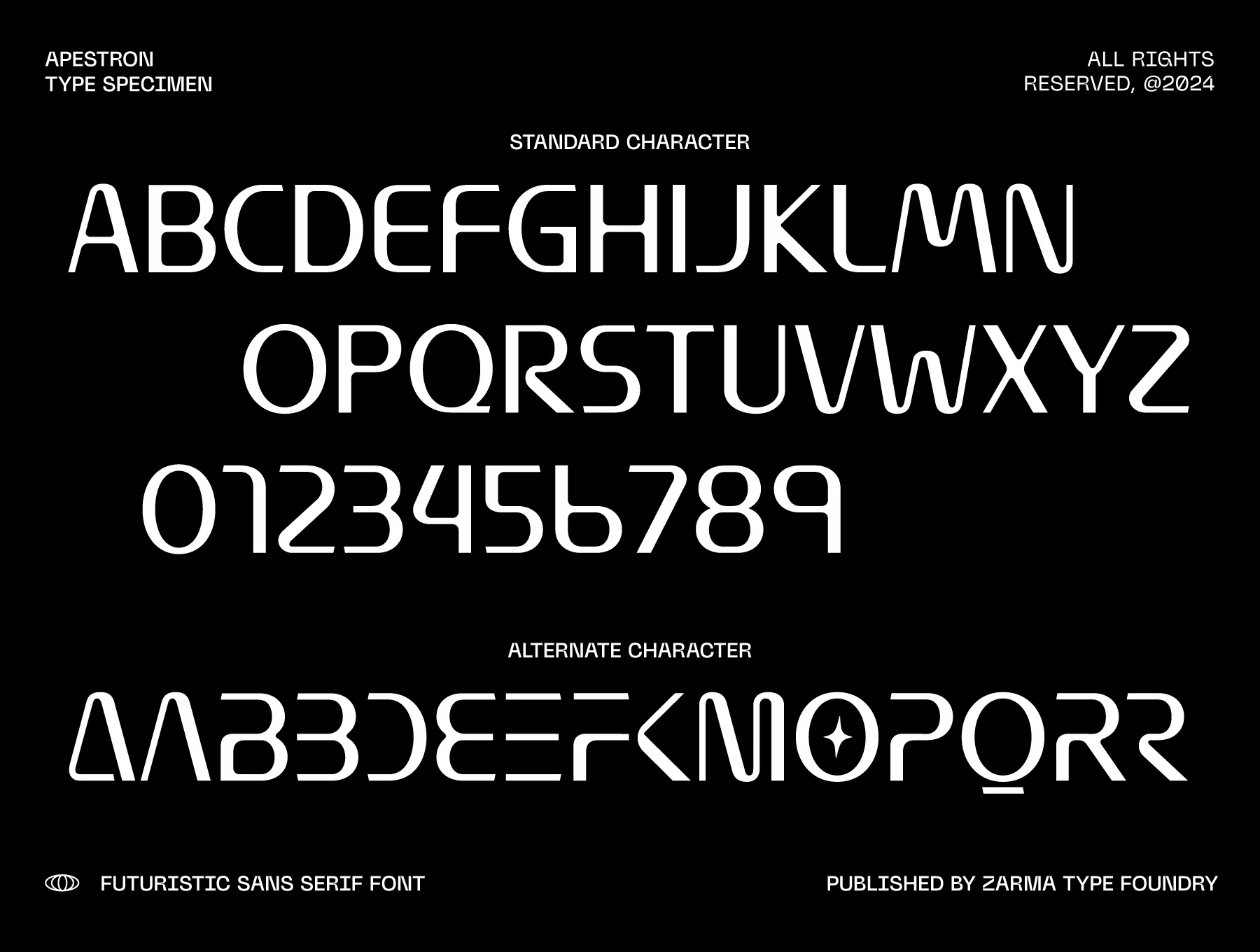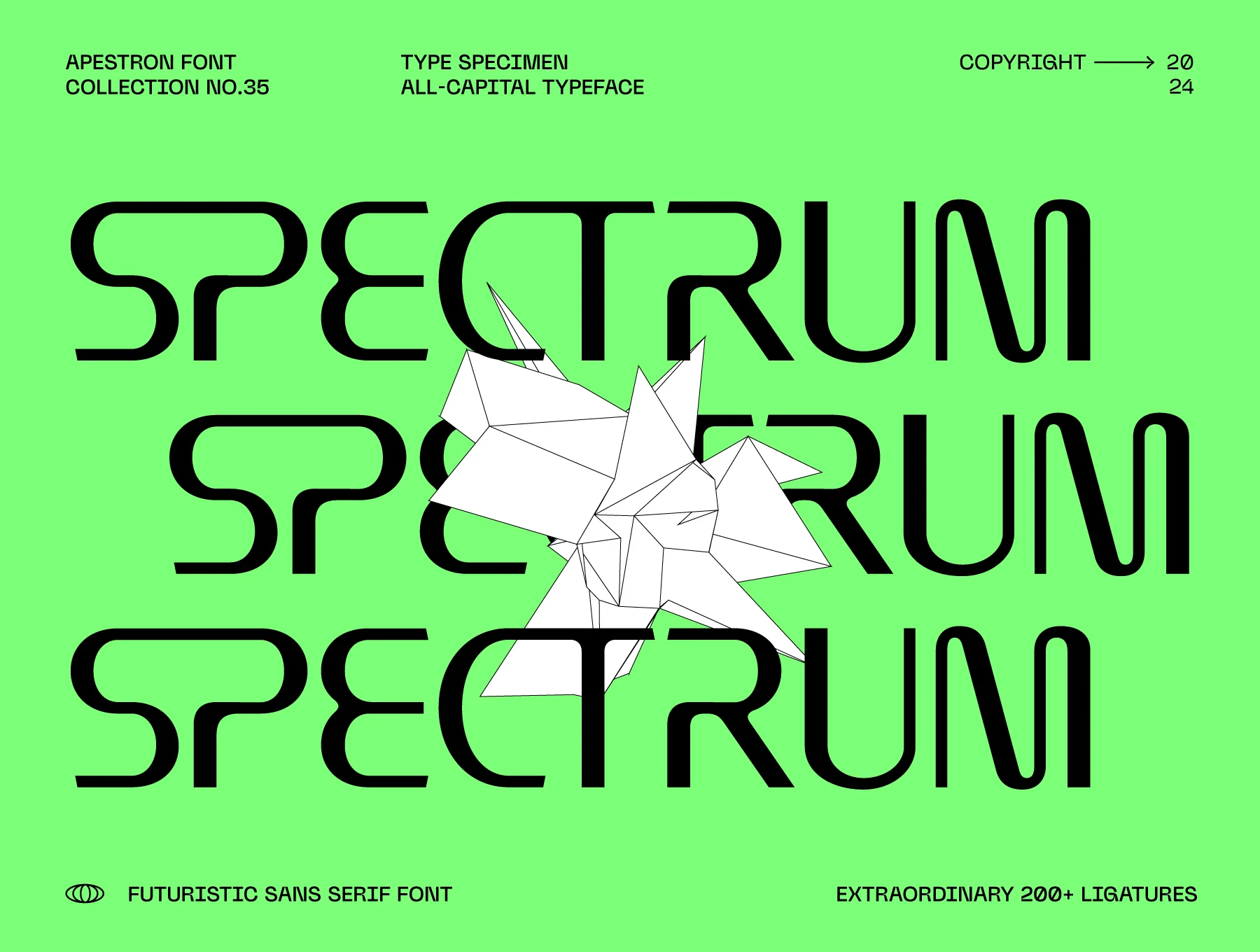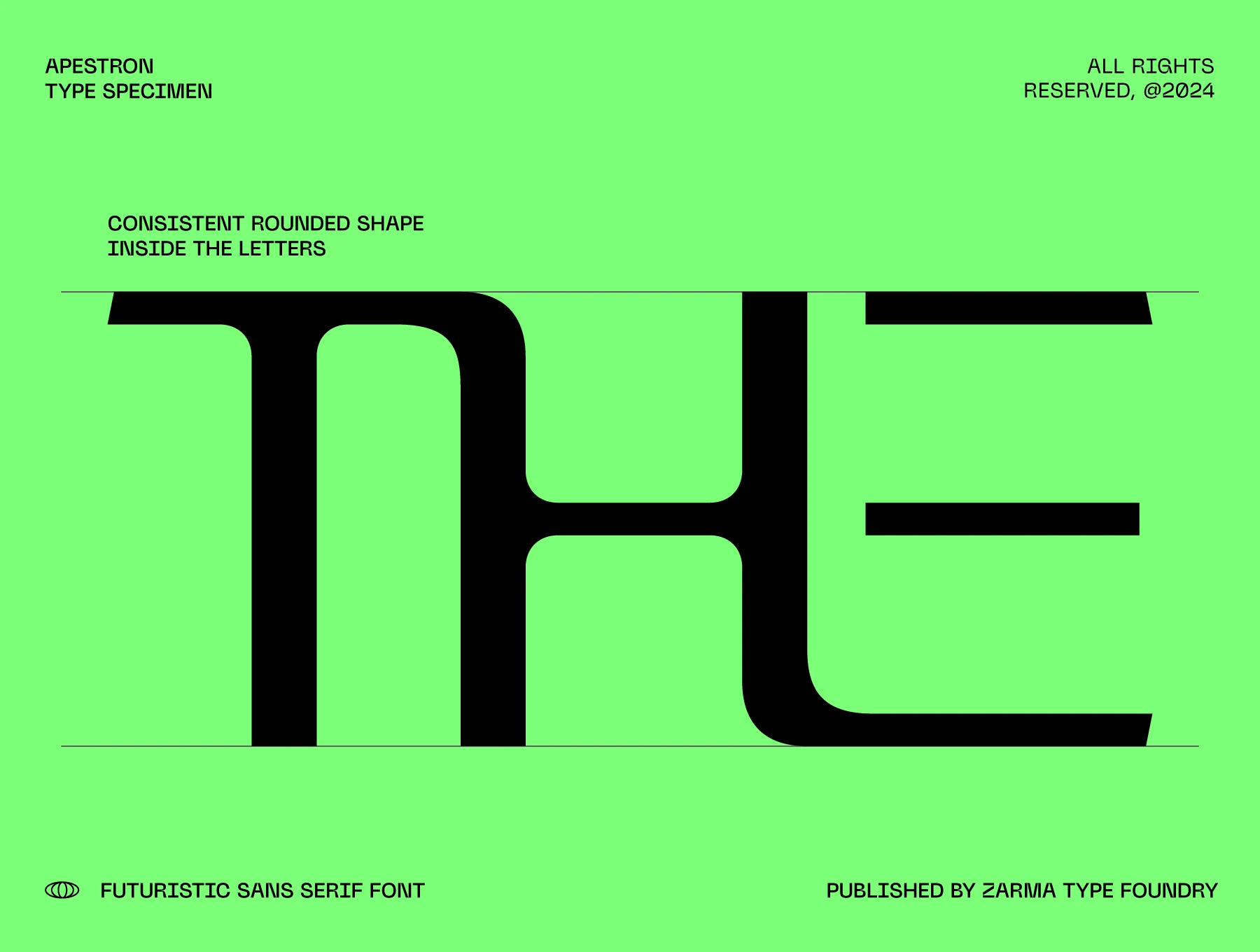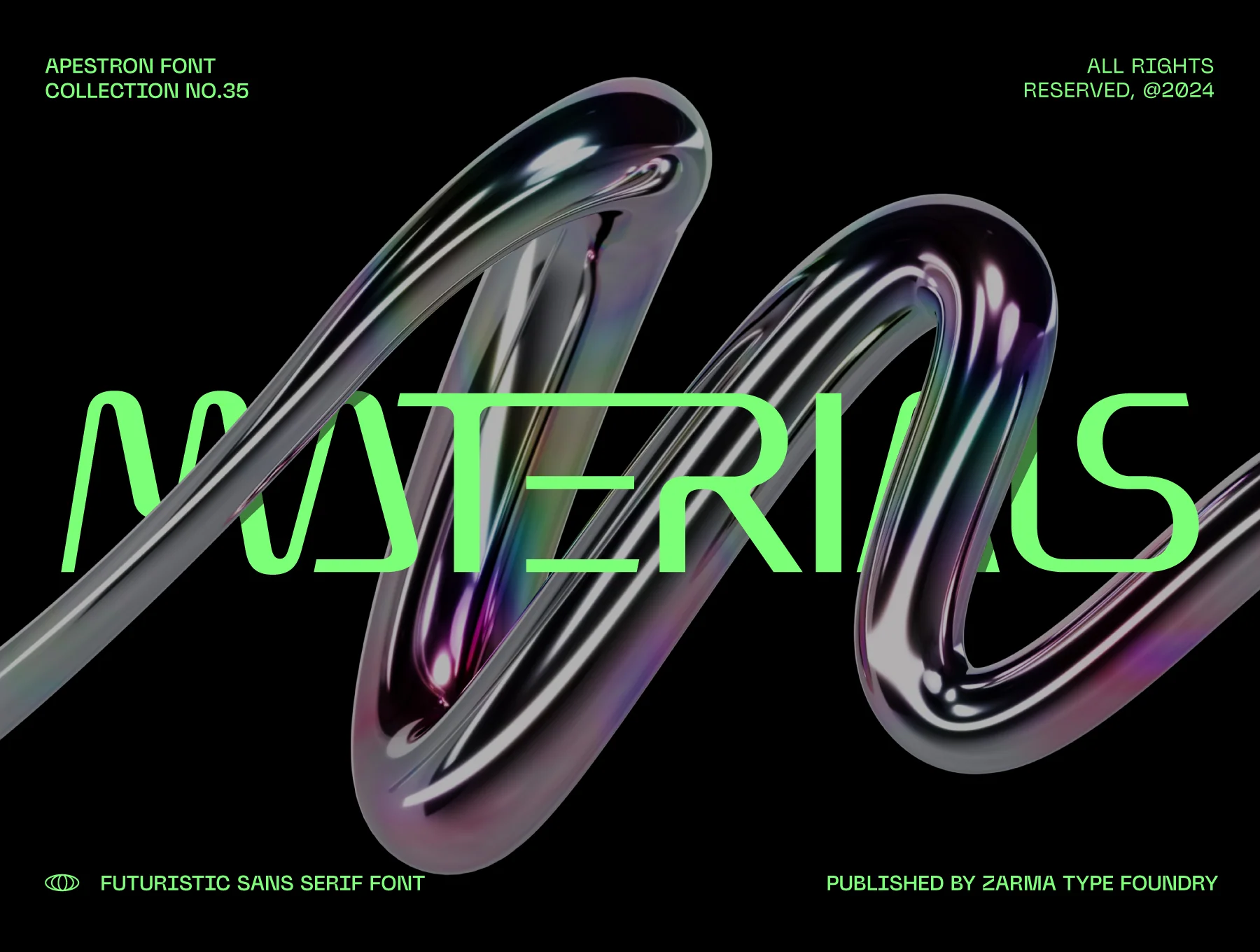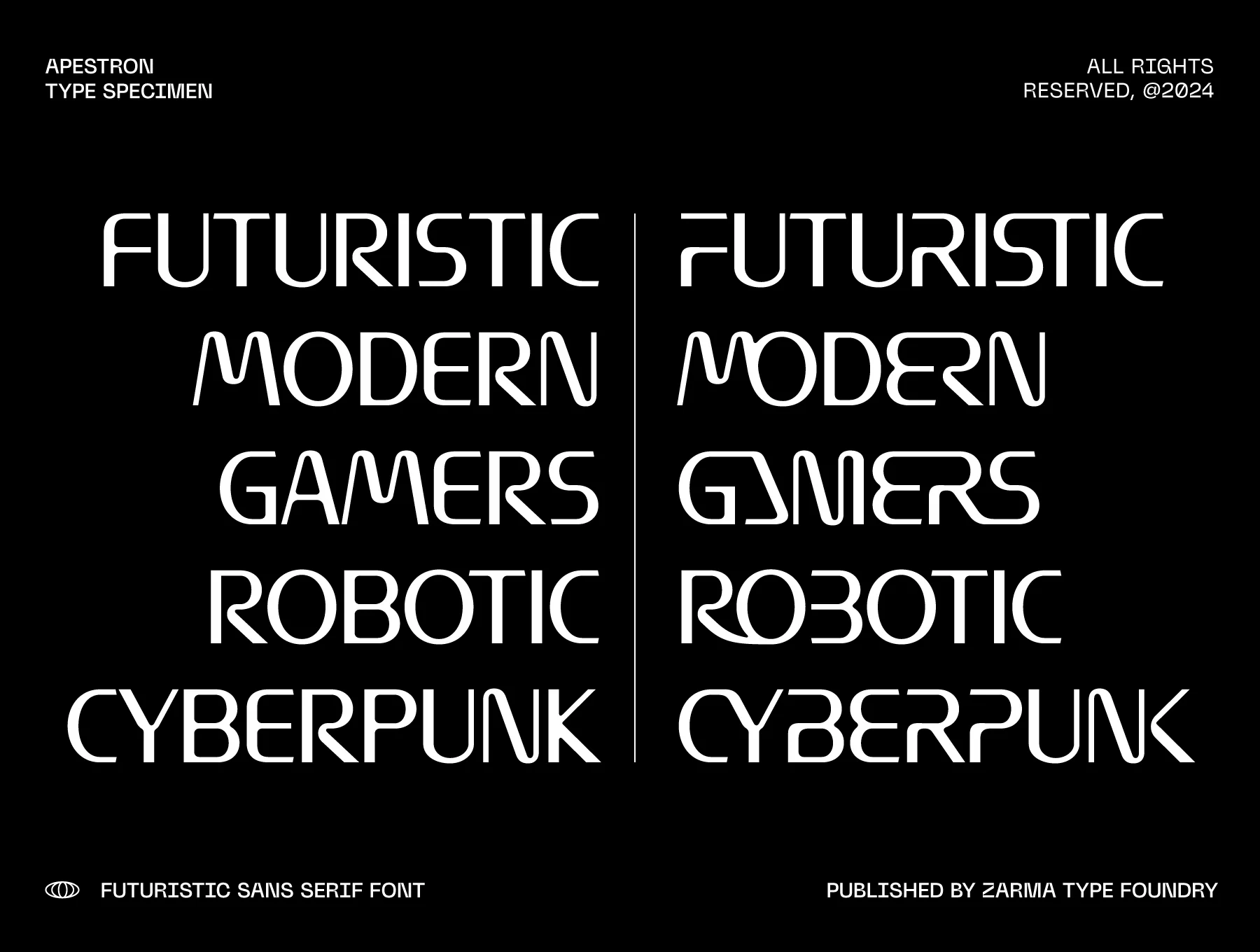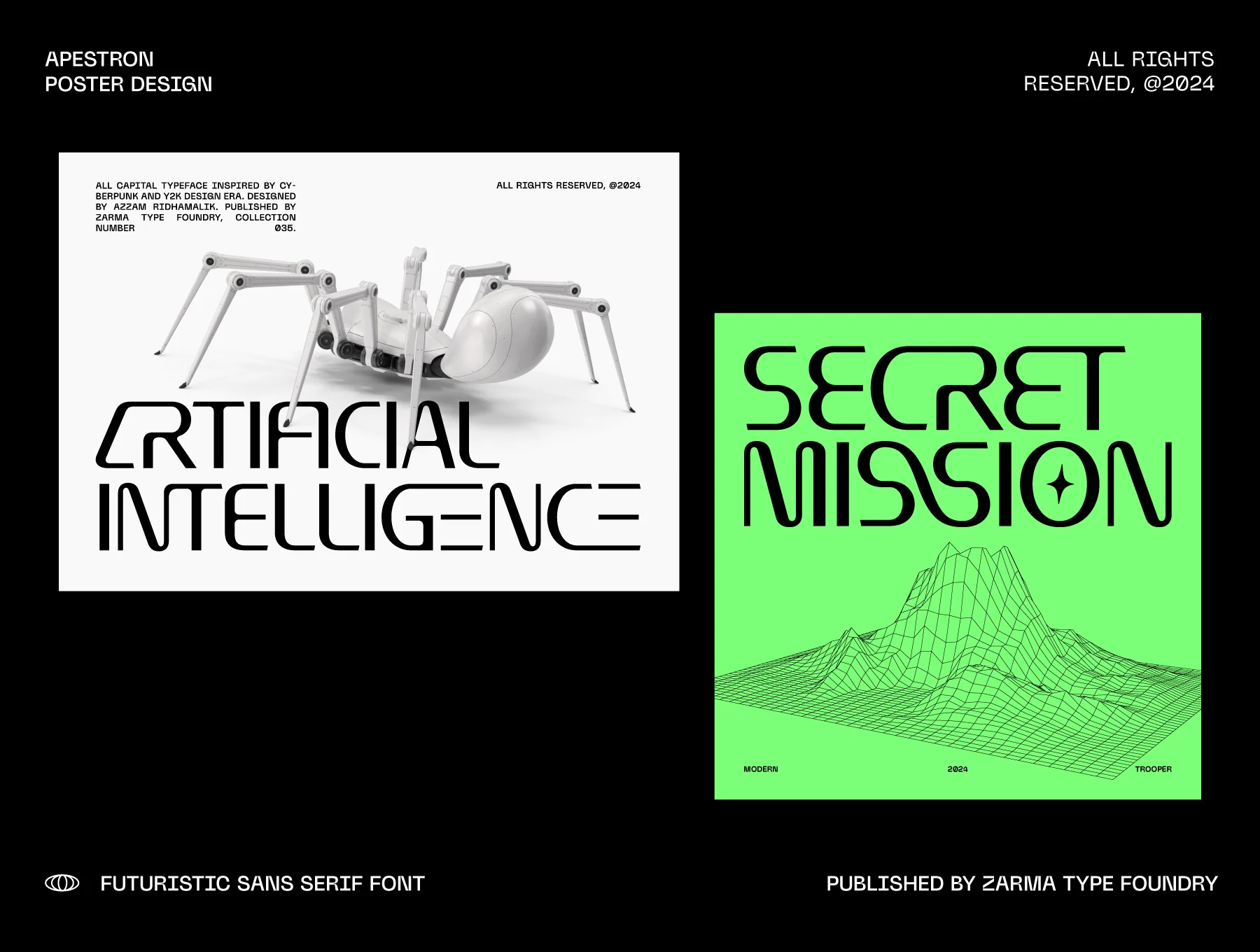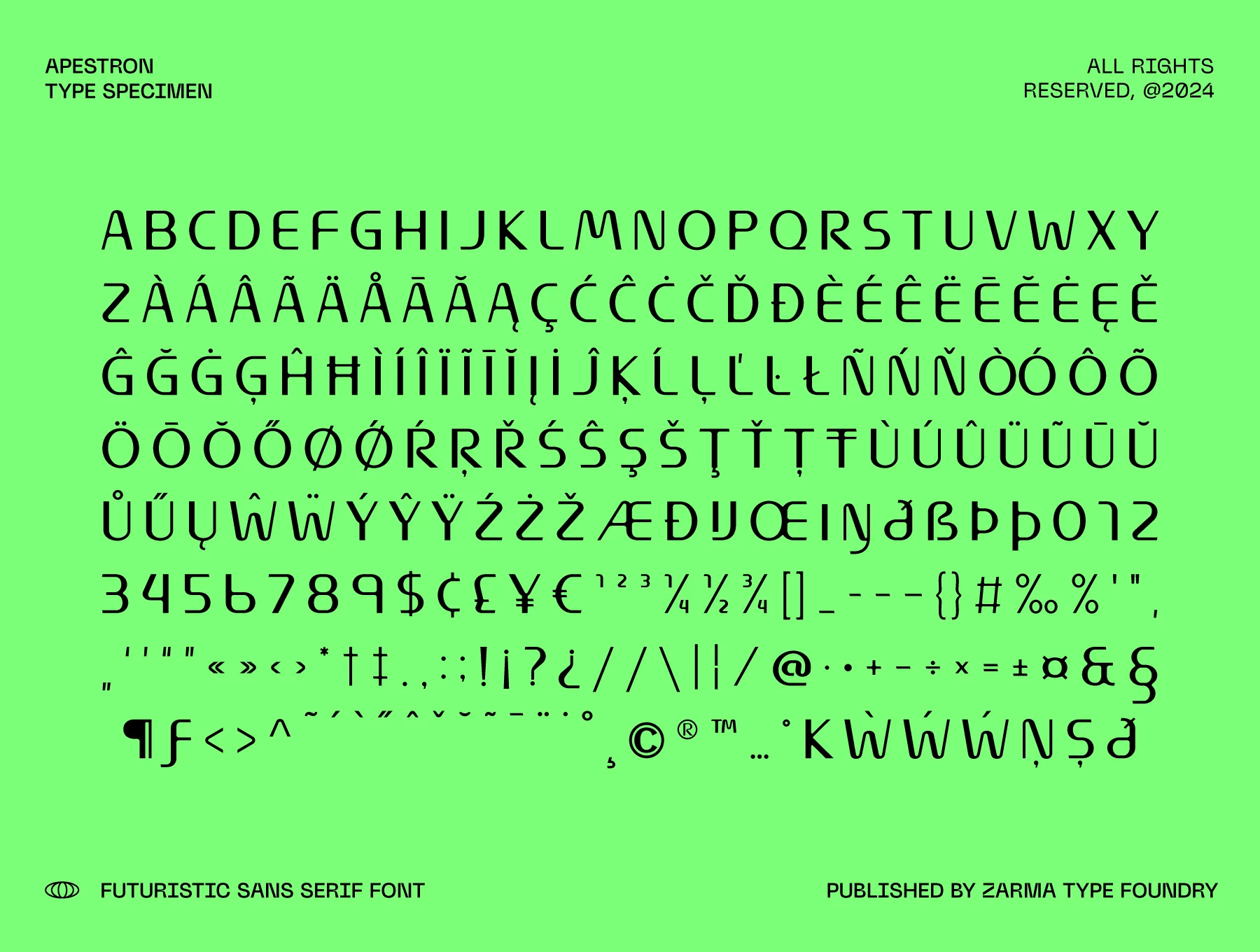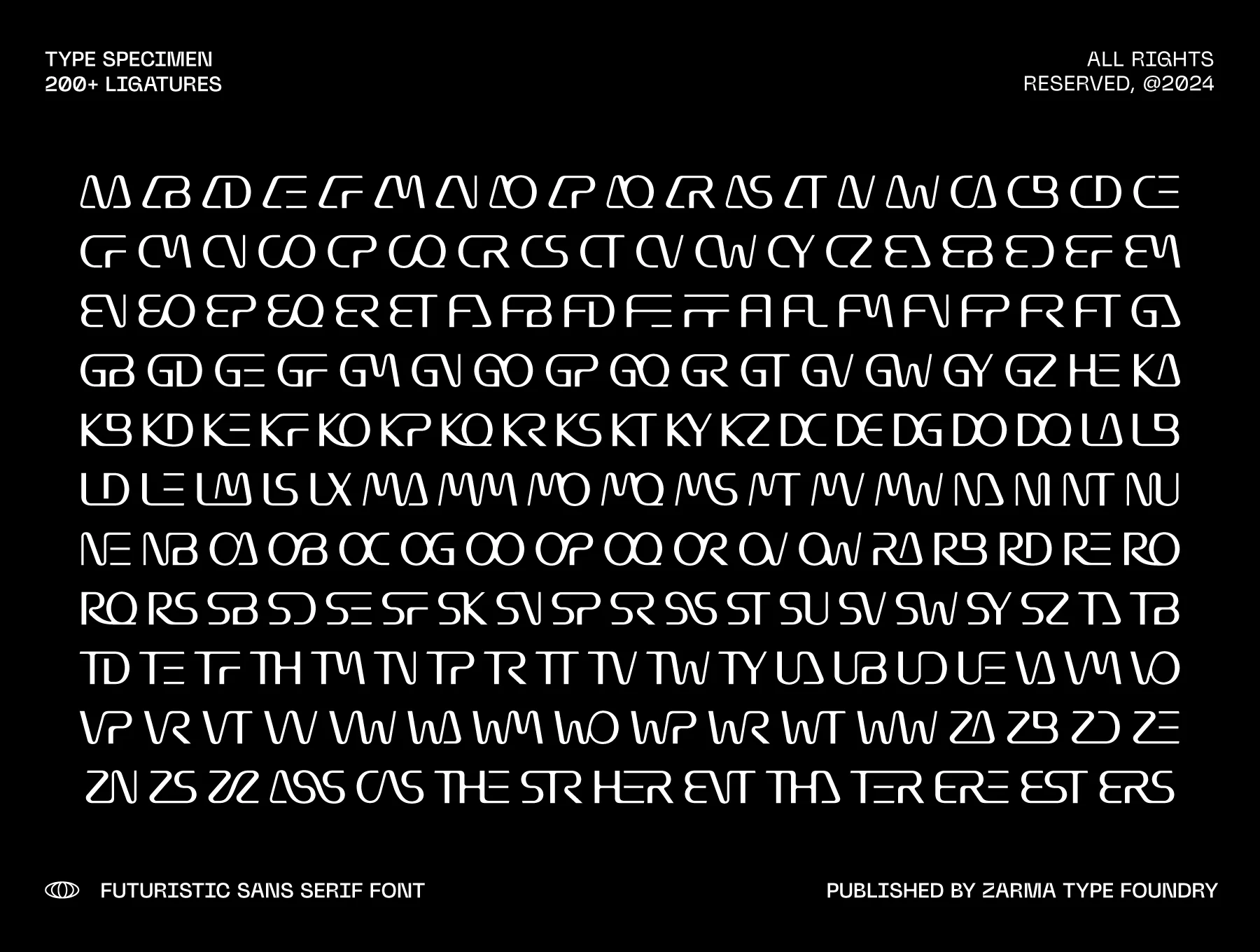
Apestron - Futuristic Font
Modern sans serif typeface featuring over 200 ligatures
Capital letters, numbers & punctuation
Over 200 ligature options
Compatible with 88 languages
Apestron is a forward-looking uppercase sans serif with crisp geometry, even strokes, and strong readability for screen or print. Ideal for technology, game, sci-fi, cyberpunk, and Y2K visuals, it includes 200+ distinctive ligatures and alternates, supports 80+ languages, and uses softly rounded forms to give projects a polished modern edge.